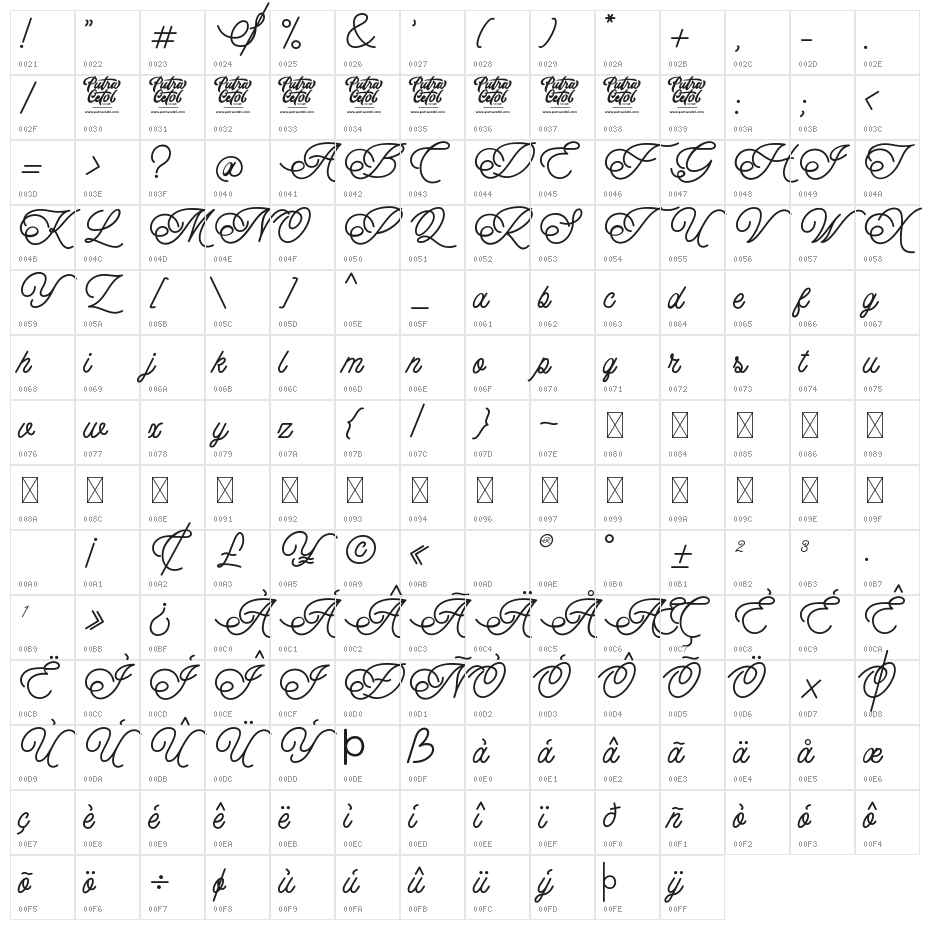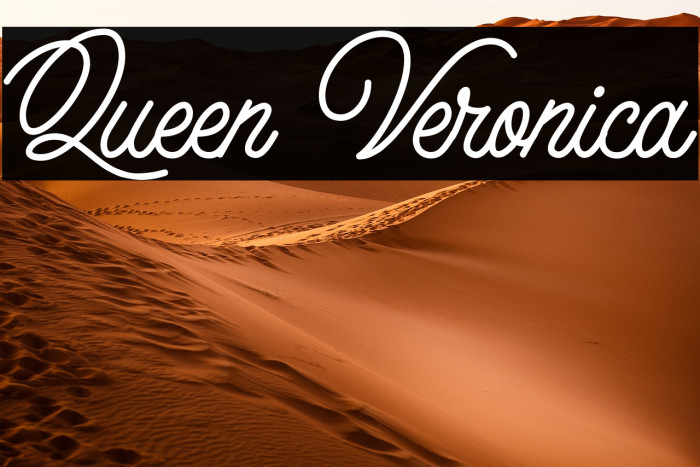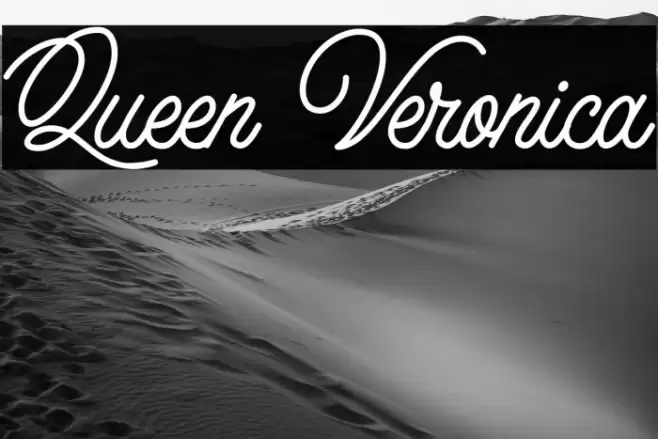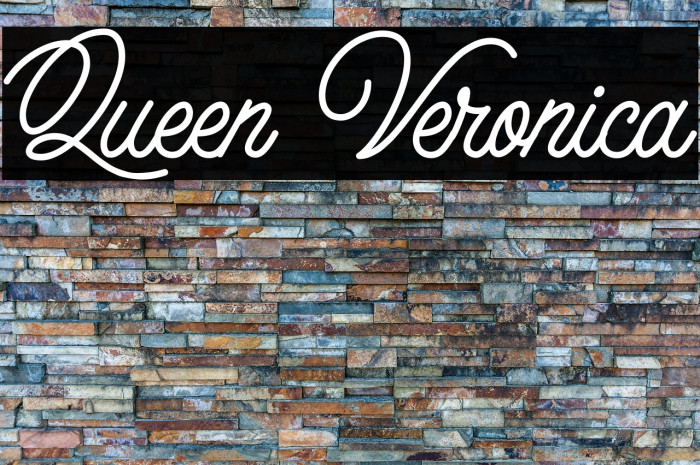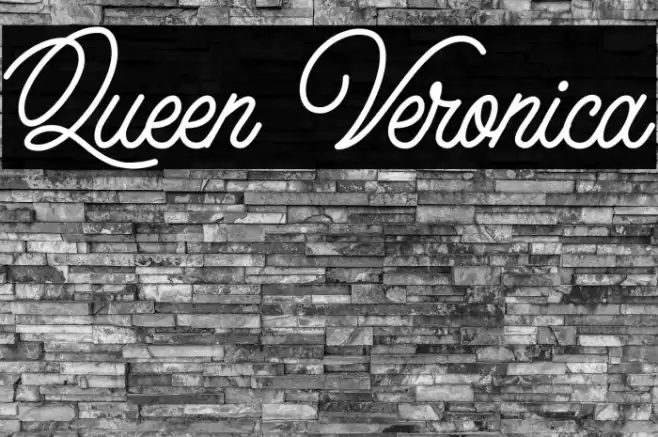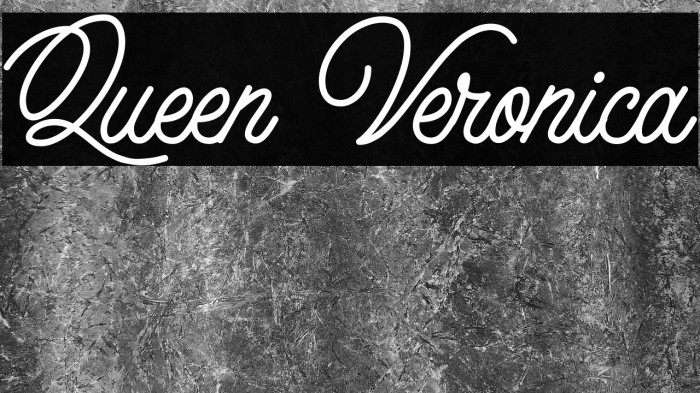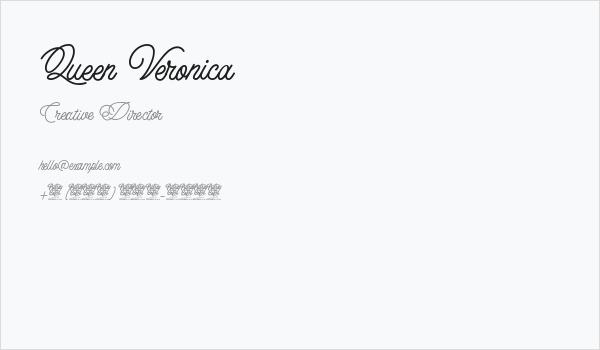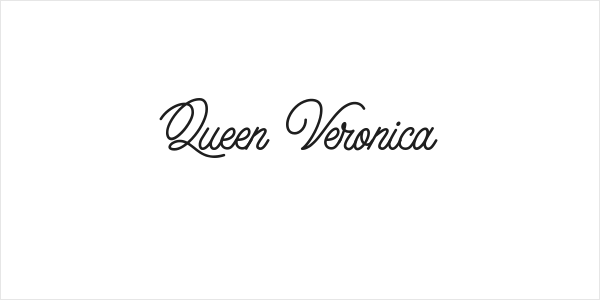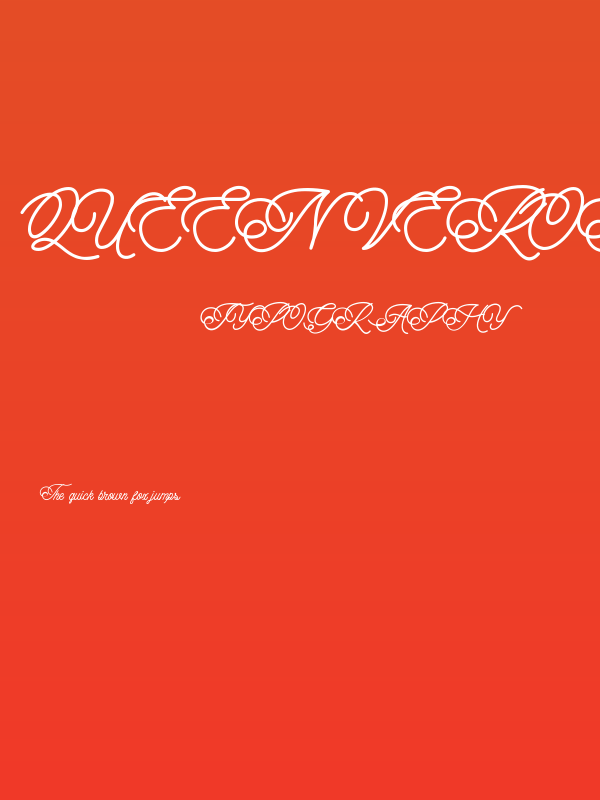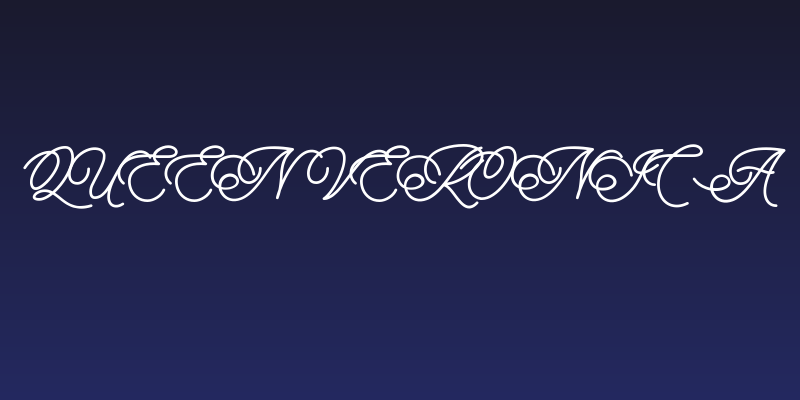
Queen Veronica Font
Queen Veronica Description
This elegant script font features intricate, flowing lines that create a sense of sophistication and grace. The uppercase letters are adorned with elaborate swirls and flourishes, giving them a decorative and ornate appearance. The lowercase letters maintain a smooth, connected style, reminiscent of traditional cursive handwriting. This font exudes a sense of luxury and refinement, making it ideal for formal invitations, branding, and high-end product packaging. The numerals and special characters are designed with the same attention to detail, ensuring a cohesive and harmonious look across all text elements.
| Use Case | Headlines, Invitations, Branding |
| Proposed Projects | Ideal for wedding invitations, luxury branding, and elegant product packaging. |